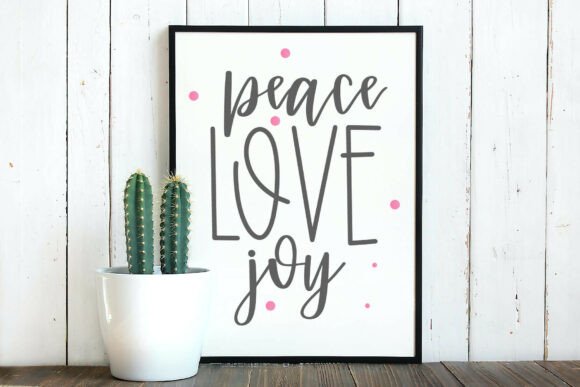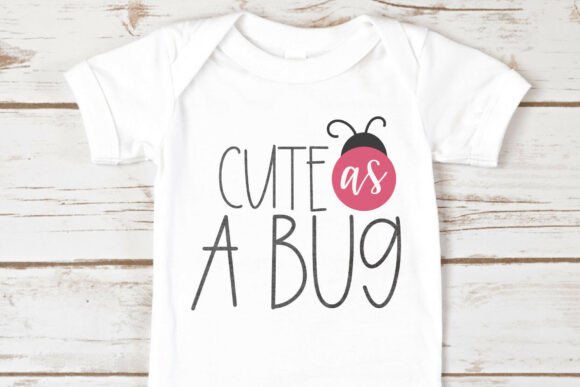
Sundae Script Duo Font
⭐️ Introducing Sundae Script – a sweet handwritten font duo that’s a perfect pairing for planners, crafts, and cute designs!
✦ Sundae Script – a bouncy brush-pen style font that mimics real handwriting. Perfect for digital planners, headers, and all things cute and sweet.
✦ Sundae Sans – a clean and tall sans serif font with thin strokes. Its tidy look blends capital and lowercase letters beautifully for a minimal touch.
Whether used together or solo, both fonts were designed to complement each other with balance and charm. Ideal for Cricut crafts, journals, greeting cards, and more!